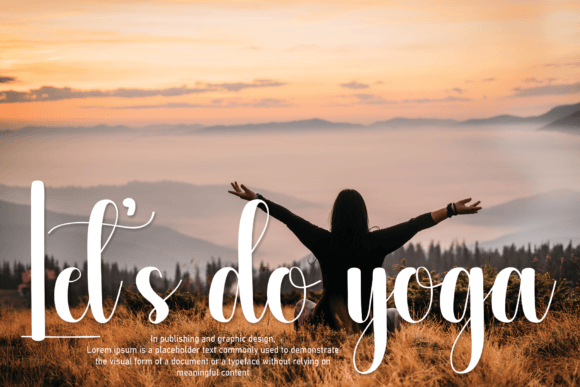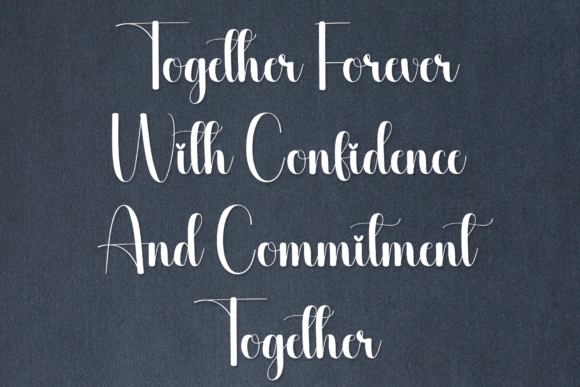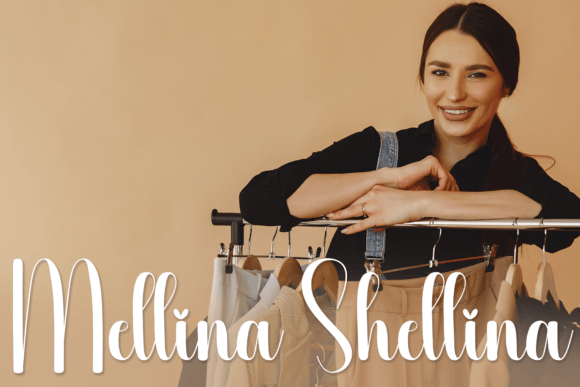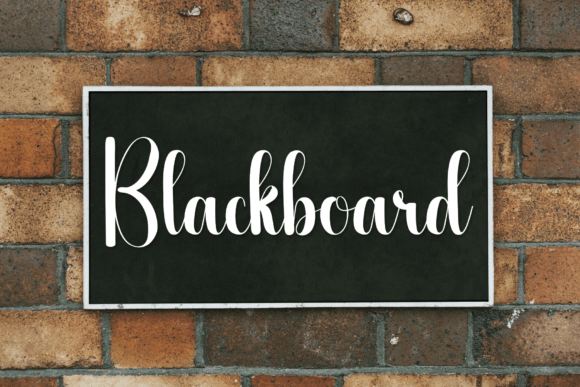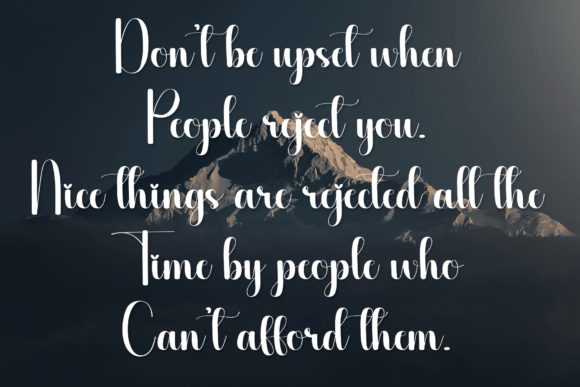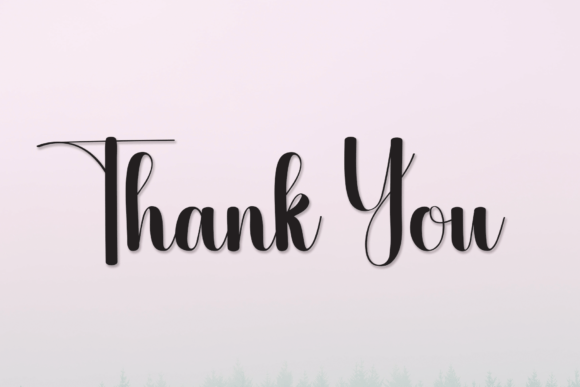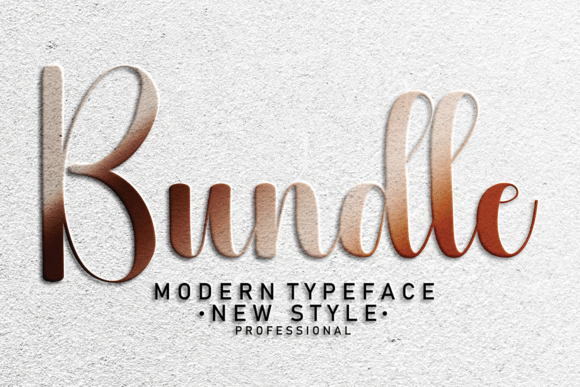
The Ultimate Guide to Bundle Font: Elevate Your Designs with Luxury and Style
I’ll never forget the time I was working on a branding project for a high-end fashion client. I had spent hours perfecting the logo design, but something was missing. The font I had chosen just wasn’t doing justice to the elegant and sophisticated vibe of the brand. That’s when I stumbled upon Bundle Font, and it completely transformed the design. In this article, I’ll share my experience with Bundle Font, its features, and how to make the most of it in your designs.
A Personal Review of Bundle Font
Bundle Font has been a game-changer for me, and here’s what I love about it:
• ✨ Elegant and flowing characters that add a touch of luxury to any design
• ✅ Smooth curves and modern design that give it a sophisticated look
• 💫 Unique and eye-catching, perfect for making a statement
• 👍 Highly versatile, suitable for a wide range of design projects
While Bundle Font is an amazing font, it’s not perfect. Here are a few quirks to keep in mind:
• 🤔 Some characters may not work well in smaller font sizes, so it’s best to use it at larger sizes (20px and above)
• ⚠️ Limited support for non-English characters, so make sure to check the font’s compatibility before using it for multilingual projects
The Story Behind Bundle Font
Bundle Font was designed by a team of typographers who wanted to create a font that would evoke the feeling of luxury and sophistication. Inspired by classic script fonts, they created a modern and elegant font that’s perfect for making a statement. The font’s smooth curves and flowing characters are designed to add a touch of elegance to any design.
What is Bundle Font? Bundle Font is a luxurious and trendy script font designed for making a statement.
Can I use Bundle Font for multilingual projects? Bundle Font has limited support for non-English characters, so it’s best to check the font’s compatibility before using it for multilingual projects.
Bundle Font is an amazing font that’s perfect for designers, crafters, and creative hobbyists who want to add a touch of luxury and sophistication to their designs. With its elegant and flowing characters, smooth curves, and modern design, it’s sure to turn heads. Whether you’re working on a branding project, a craft project, or just want to add some style to your designs, Bundle Font is definitely worth checking out.